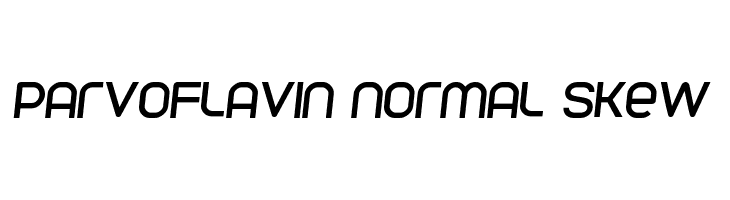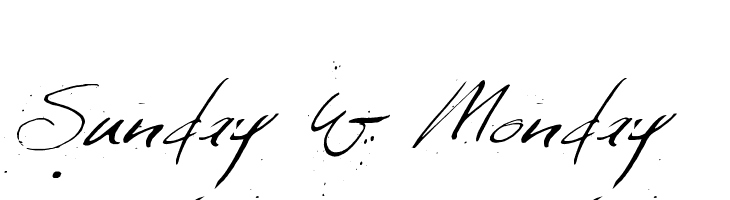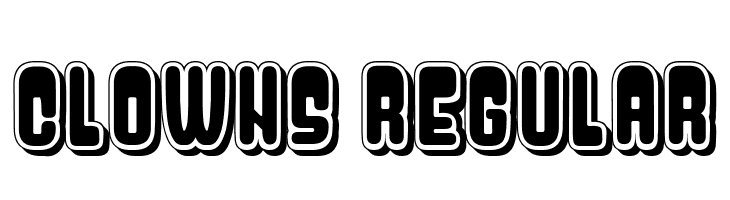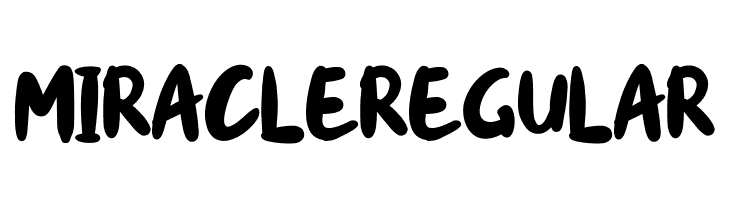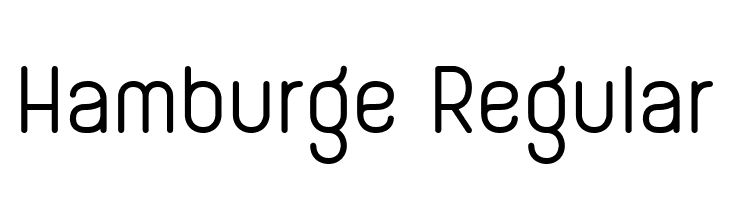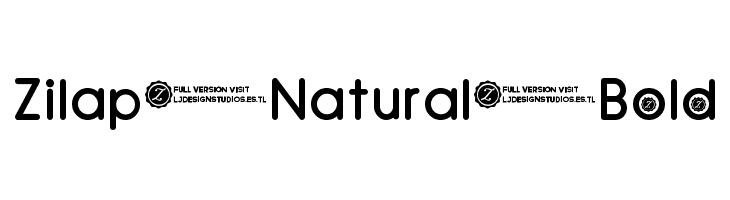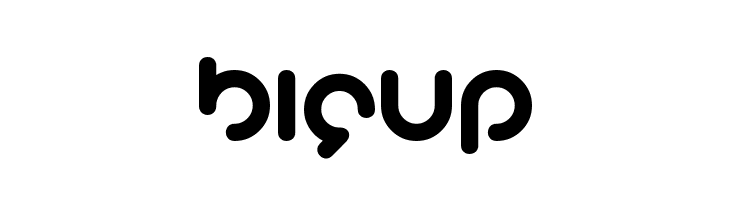
A dynamic, expressive handwritten font with bold, sweeping strokes.
A bold, playful font with rounded characters and a vintage circus vibe.
An elegant, flowing script font with graceful loops and swashes.
A modern, light sans-serif font with smooth curves and balanced proportions.
A bold, playful handwritten font with rounded edges and thick strokes.
A playful, handwritten font with dynamic strokes and a casual style.
A modern sans-serif font with rounded edges and uniform stroke width.